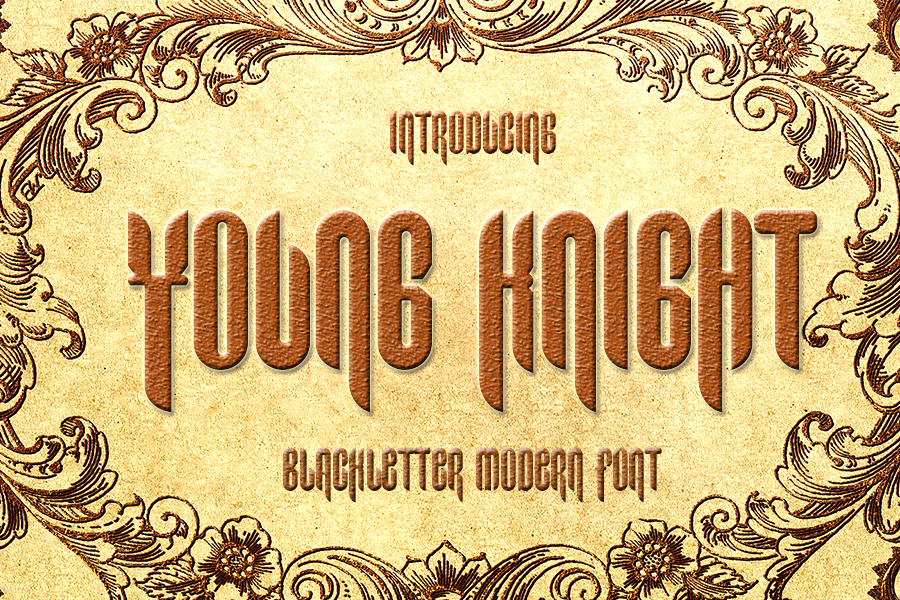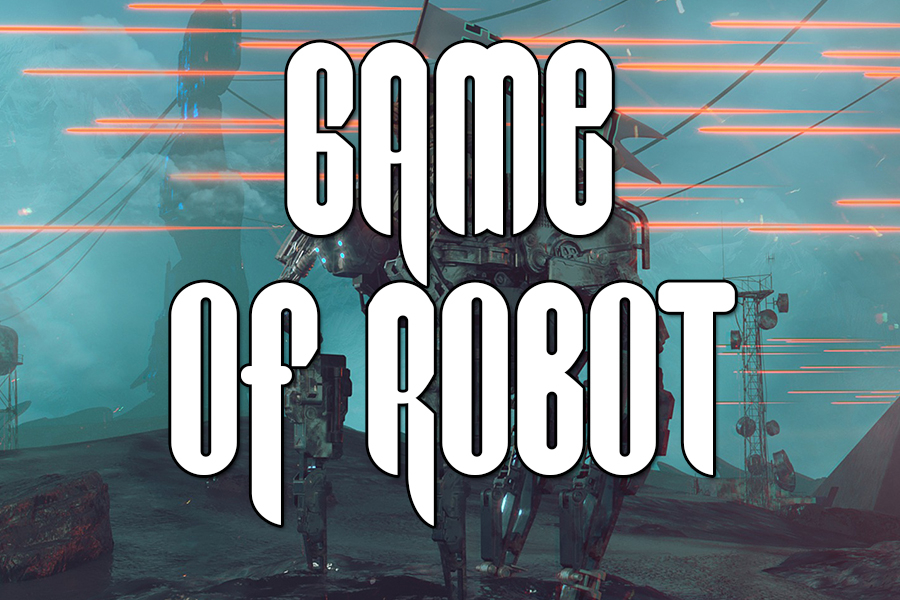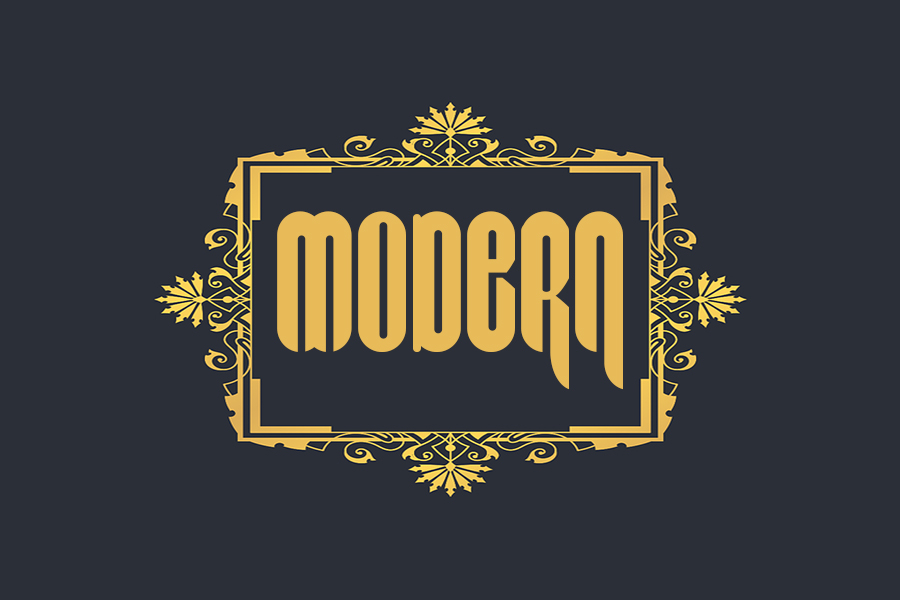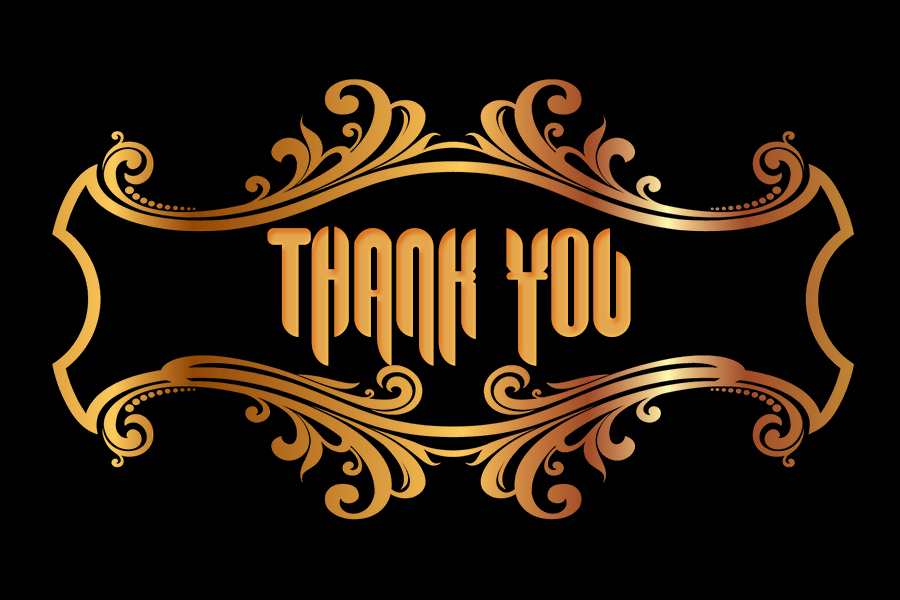
Young Knight Font
About Young Knight Font
Young Knight is a unique and interesting blackletter font. A little bit quirky, this font looks incredibly adept on a wide variety of contexts!